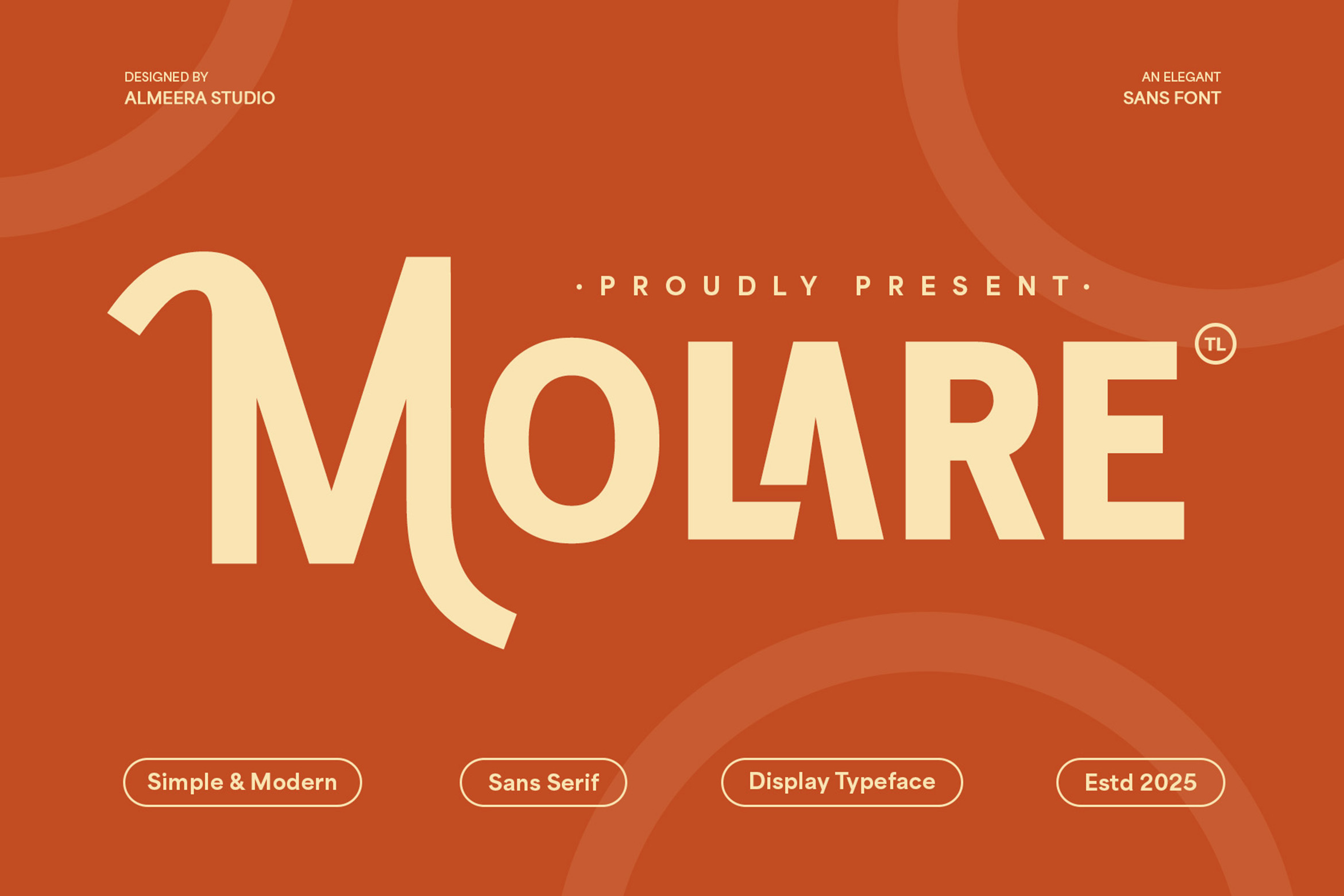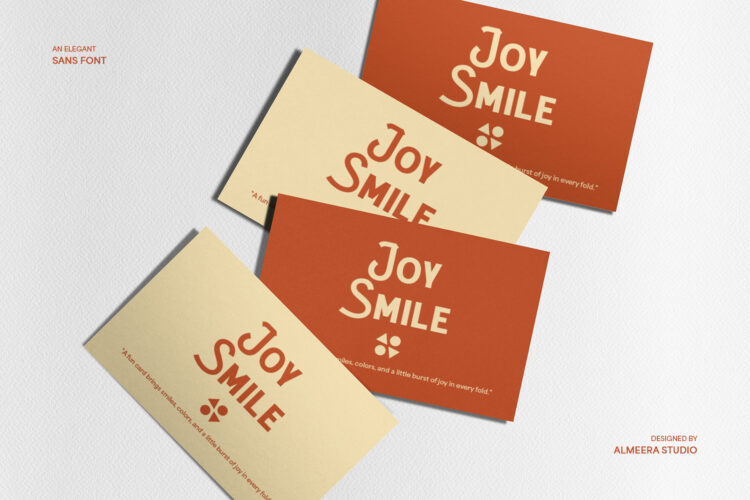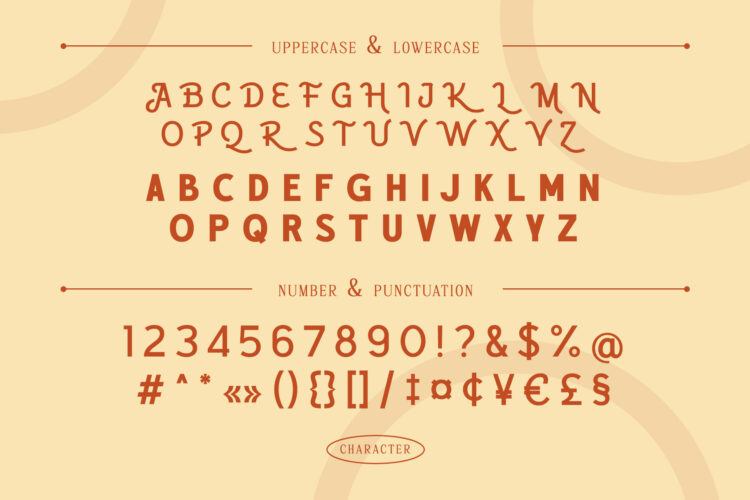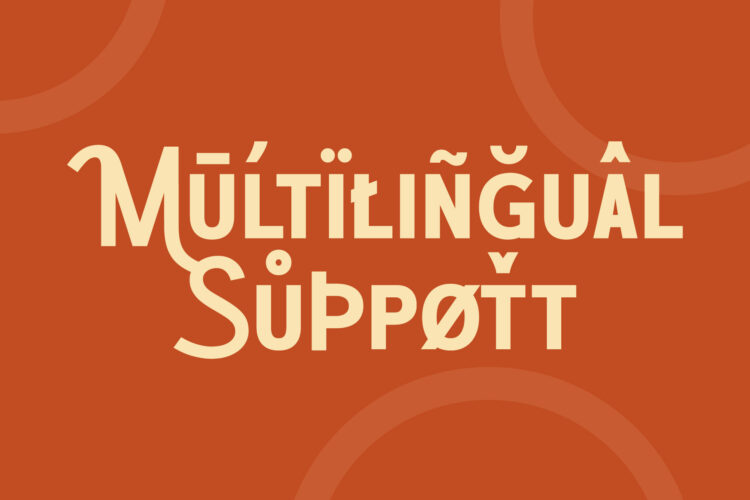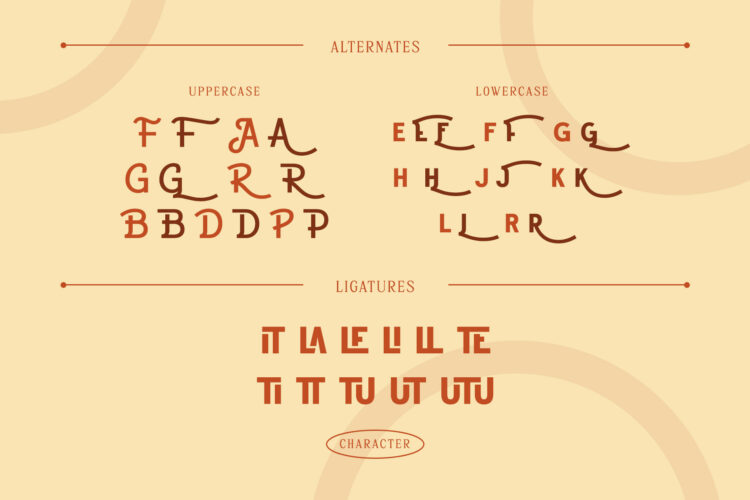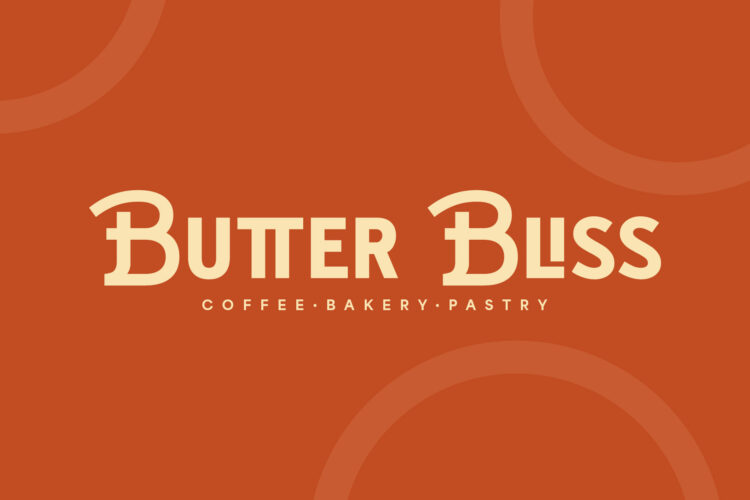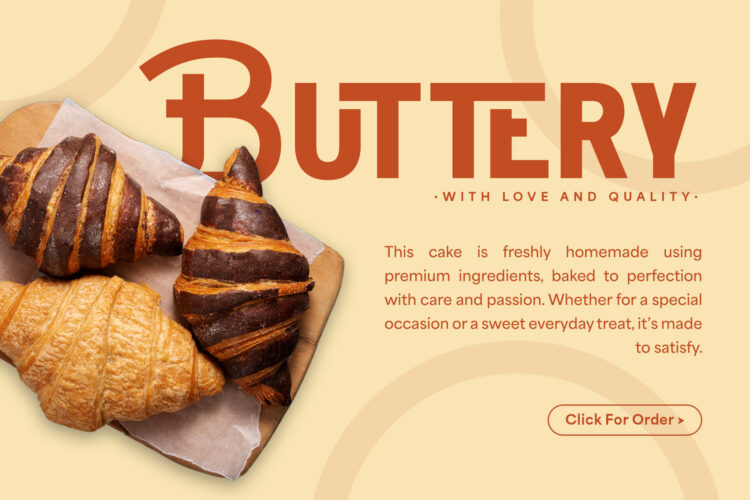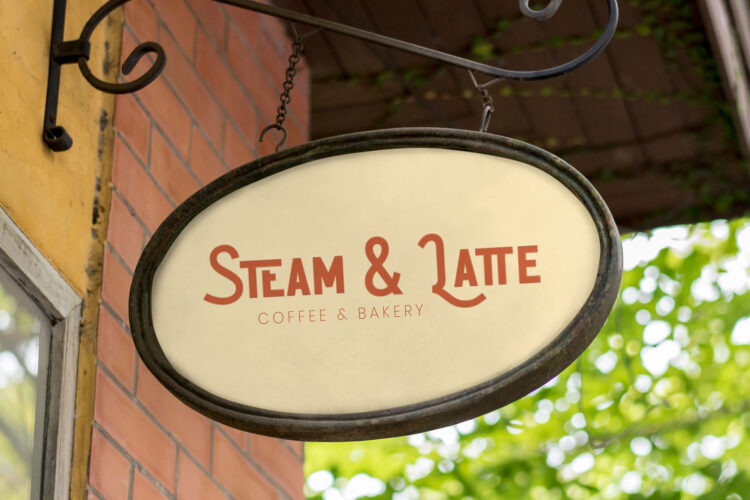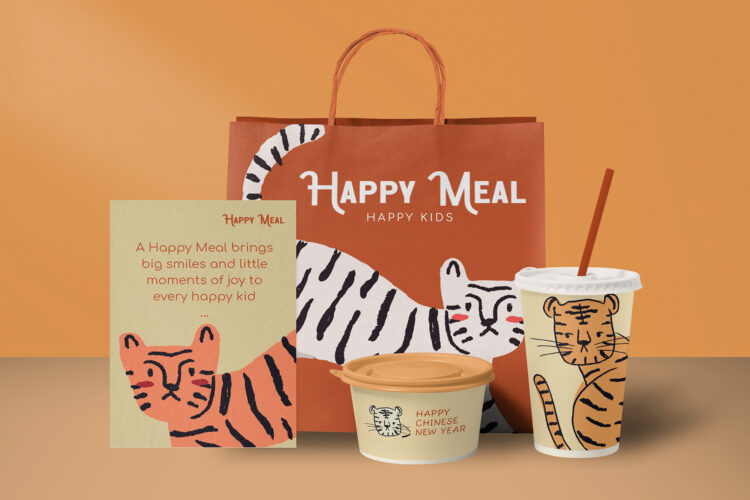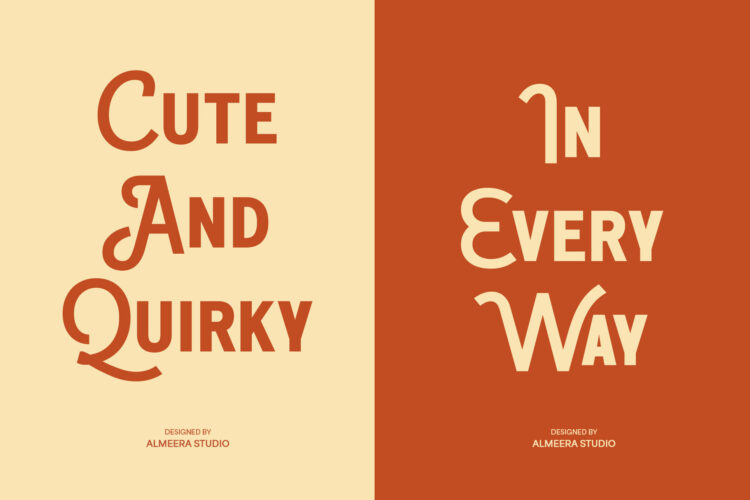
Introducing Molare, an elegantly simple yet powerfully modern sans serif display typeface designed to bring refined clarity to your designs. With its clean lines and inviting curves, Molare is perfect for branding, editorial design, minimalist logos, web design, and graphics. This versatile font offers exceptional readability and a contemporary aesthetic, making it ideal for projects that demand a fresh, sophisticated, and approachable look. Molare’s harmonious balance between simplicity and modern elegance ensures your message is delivered with understated confidence. Elevate your typography with Molare, the quintessential font for designers seeking a chic, professional, and broadly applicable solution.
Molare – Modern Display Sans